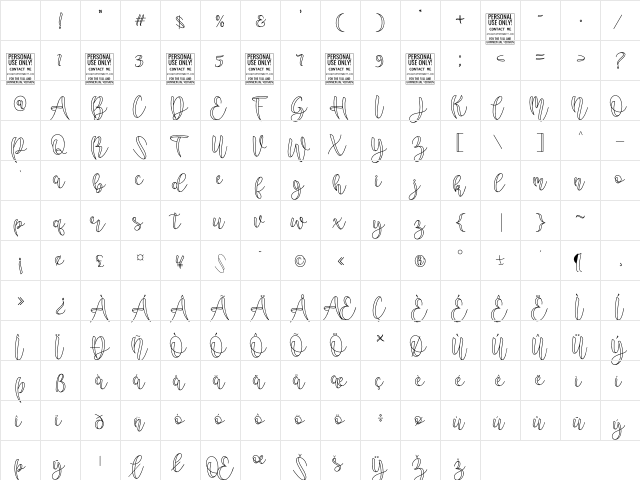
Complete Water Splash Outline glyph index. Displaying only characters natively supported by Water Splash Outline font.
Water Splash is built around its visual character rather than neutral utility - its distinctive forms are designed to make an impression at display sizes.
Font Pairing: Pair with a clean neutral sans-serif for body copy to let Water Splash's character lead without overwhelming the composition.
Pro Tip: Use Water Splash exclusively at display sizes - it was designed to be seen, not read at length. Let a neutral companion handle body copy.